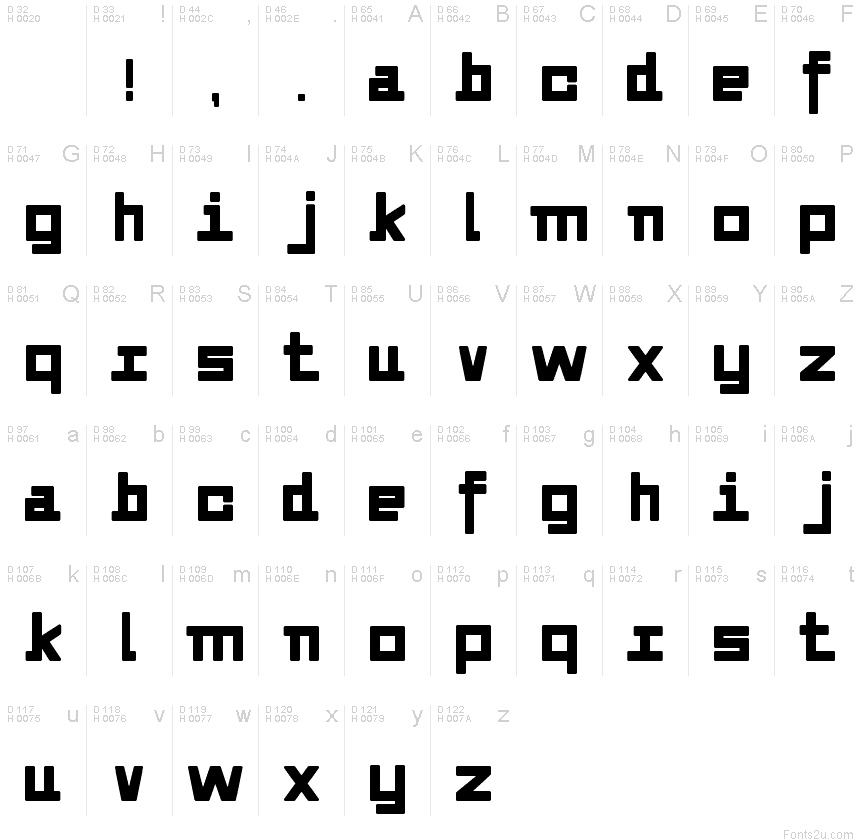
Alvedon
Alvedon font by Johansson is a free techno display typeface that looks like it was cut from a single solid block of plastic and lit from within. Its chunky, squared forms, tight spacing, and flat-topped curves give every word a strong, mechanical rhythm—like a status readout on a futuristic console. There’s a pleasing tension between the rigid rectangles and the occasional softened corner, which keeps it bold and brutalist without feeling cold or generic.
Using Alvedon, headlines snap into place on gaming covers, sci-fi movie titles, tech conference posters, esports branding, and electronic music flyers. The sturdy, uniform letters hold up at large sizes and on crowded layouts, so your titles stay legible even over busy imagery. This free font pairs well with a light, simple geometric sans in smaller text, letting Alvedon handle the loud, glowing statement up front.